Stadt Freising
Short facts
The new unified city branding
The tourism brand of the city of Freising is to be dissolved. Instead, the city wants to appear as a uniform sender. For a modern brand appearance on a historical basis, the coat of arms was rethought. The bear’s posture became more self-confident, the colors more radiant and the font friendlier.
Under the motto: The youngest and oldest city on the Isar, the people of Freising should once again be able to identify with their city. The city must appear professional and cosmopolitan in order to attract not only students but also companies.
Currently, not every visualization has been realized yet, some applications are still in progress.
Under the head of the shield with the Bavarian lozenges in gold a striding black bear carrying on its back a red bundle tied with silver ribbons.
— House of Bavarian History
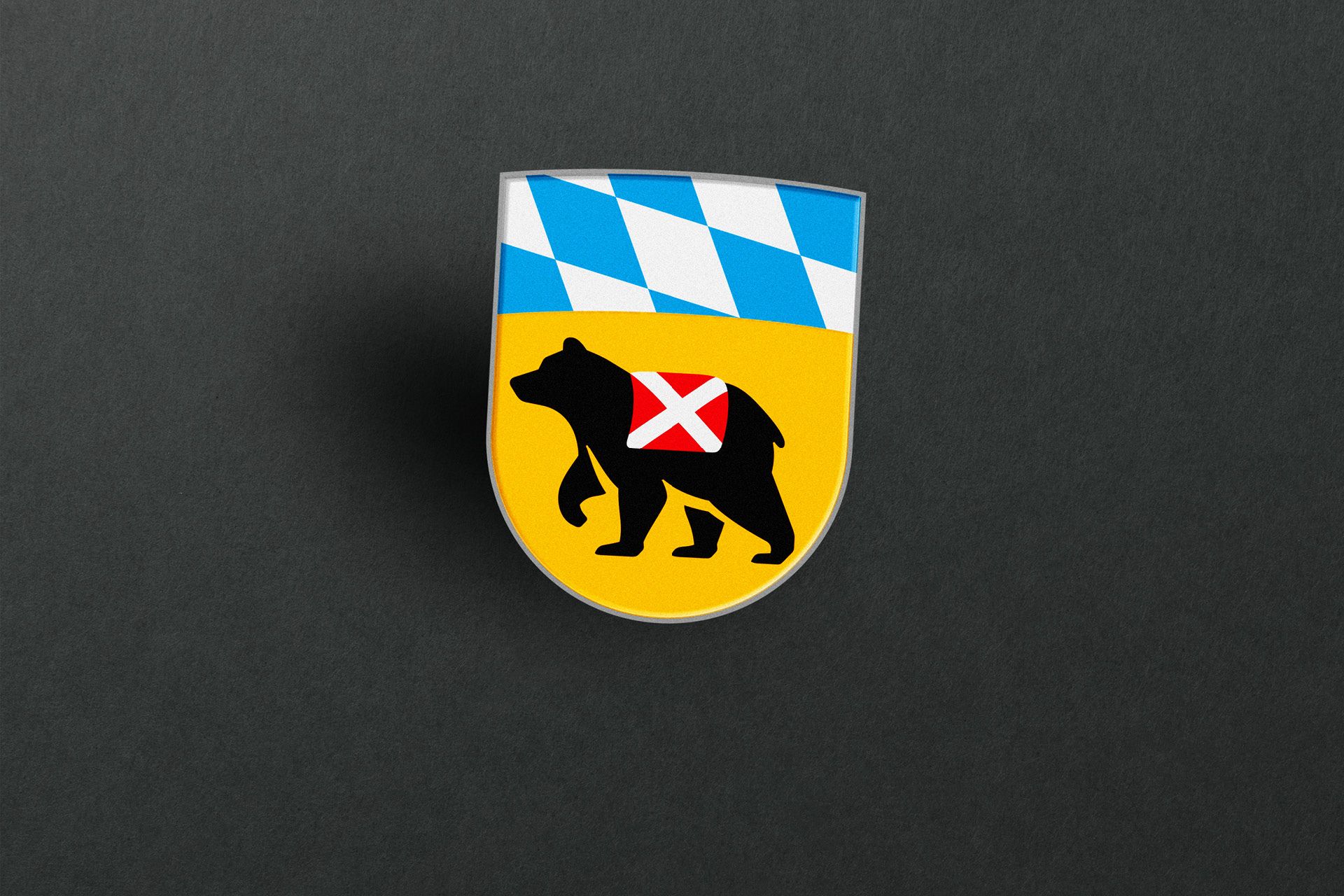
Layout principles
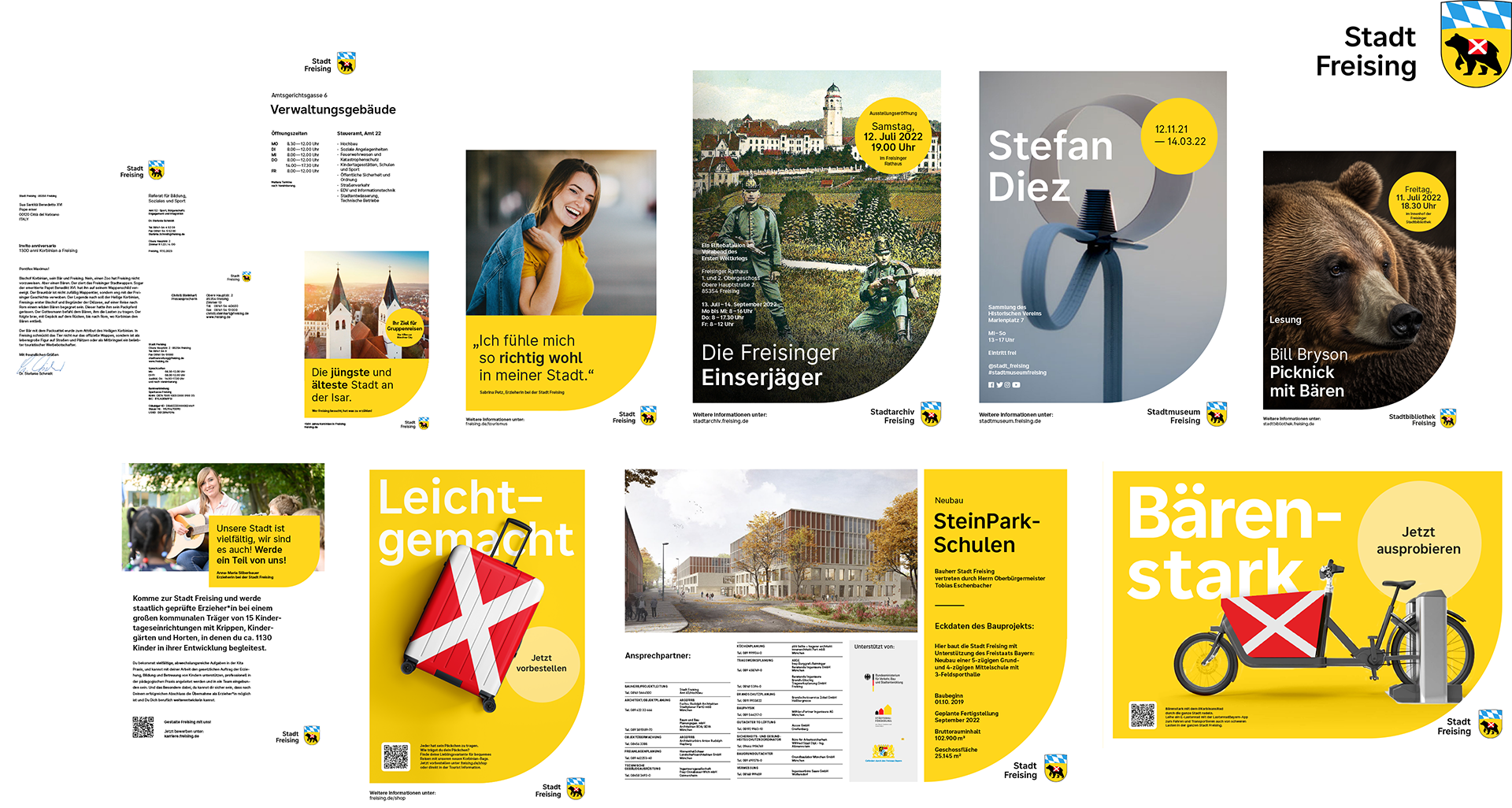
The new corporate design for the city of Freising should bring more consistency. The simple design principle is derived from the shield shape and the colors of the coat of arms. Thus, the yellow, as the carrier of the coat of arms, takes center stage in the visual presentation. It was important that the design framework is easily adaptable to all standard DIN formats and special formats.
In order to enable accessible communication for many people, we have designed an easily implementable and comprehensible corporate design system by defining well-thought-out basic elements with enough contrast and high legibility.
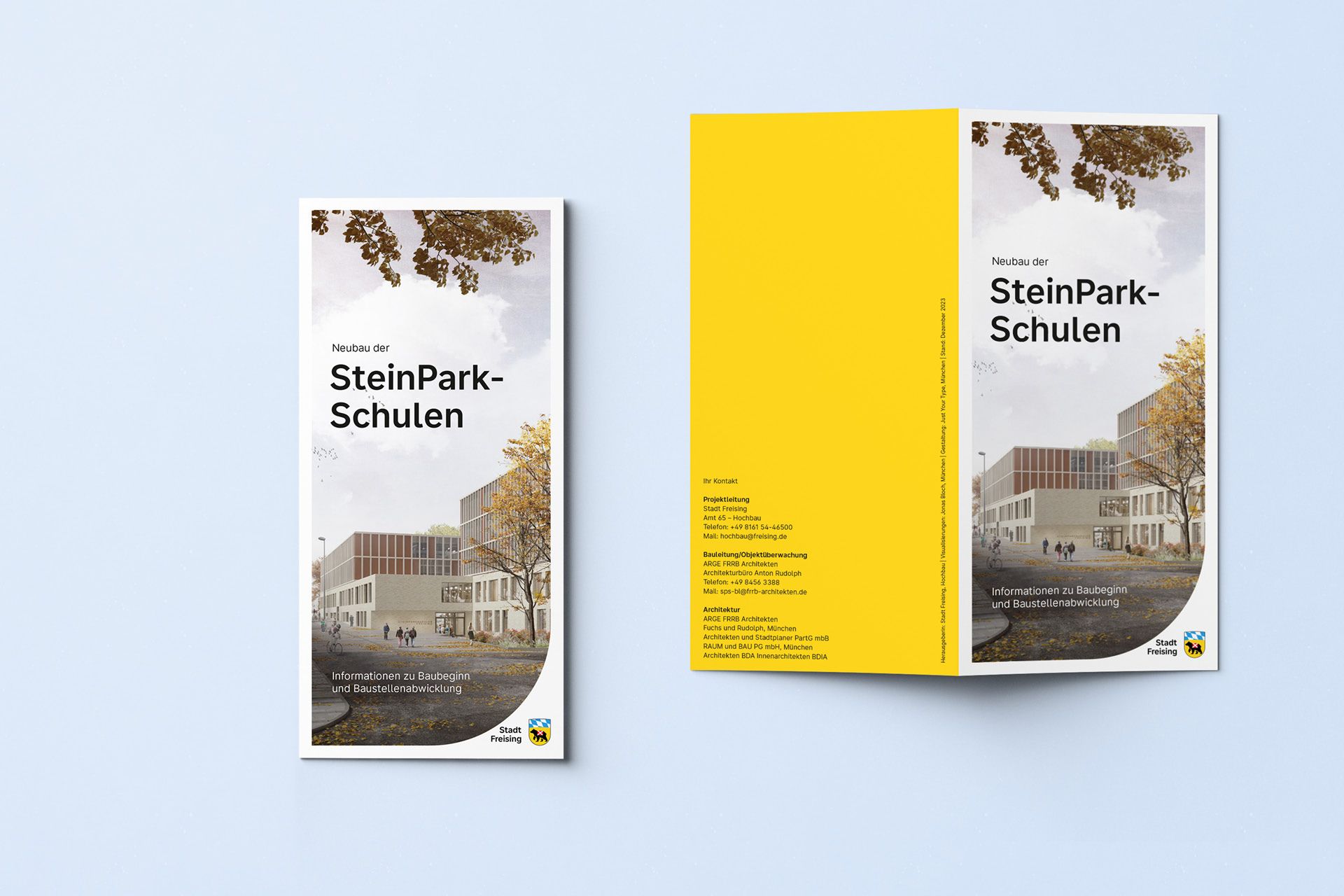
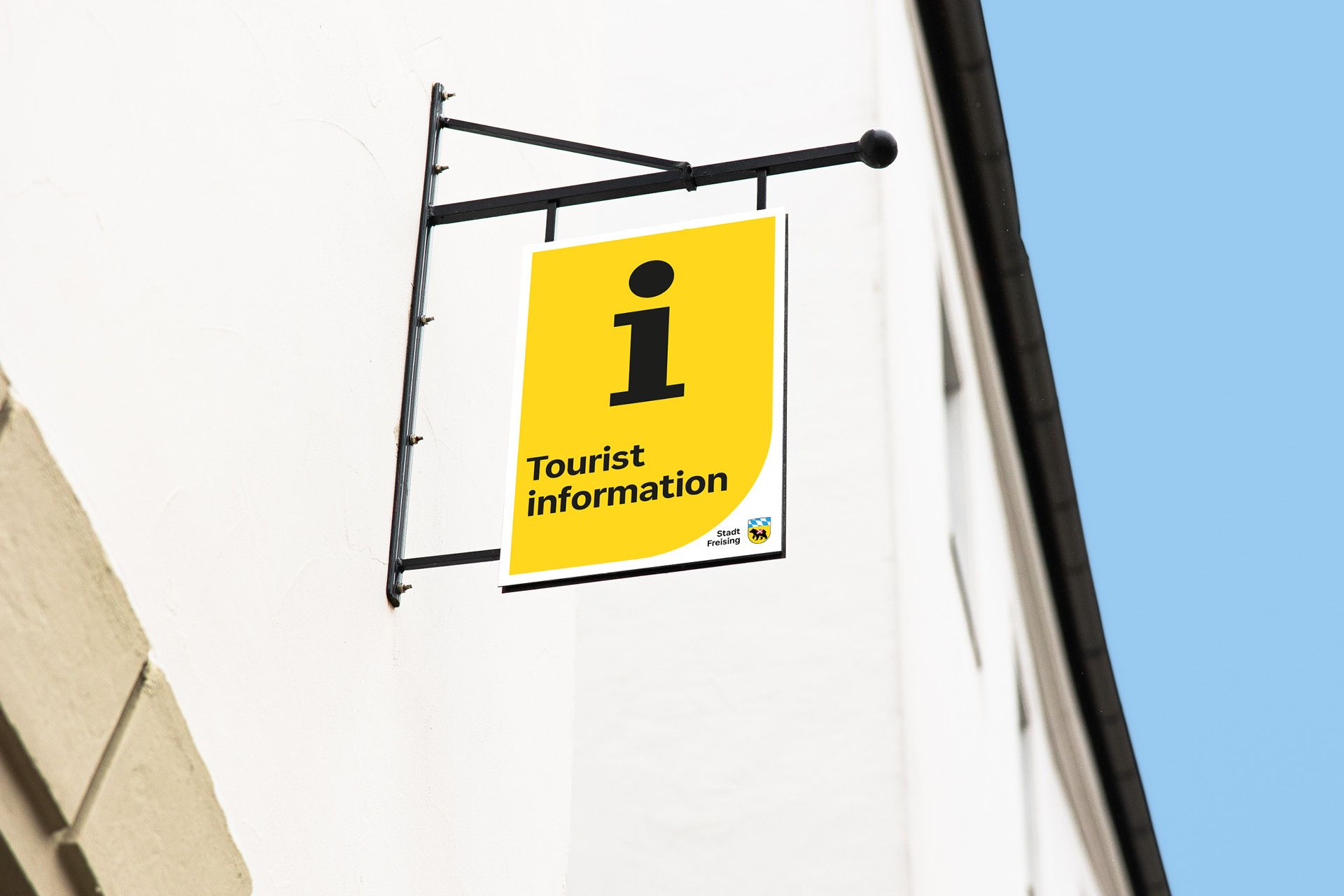
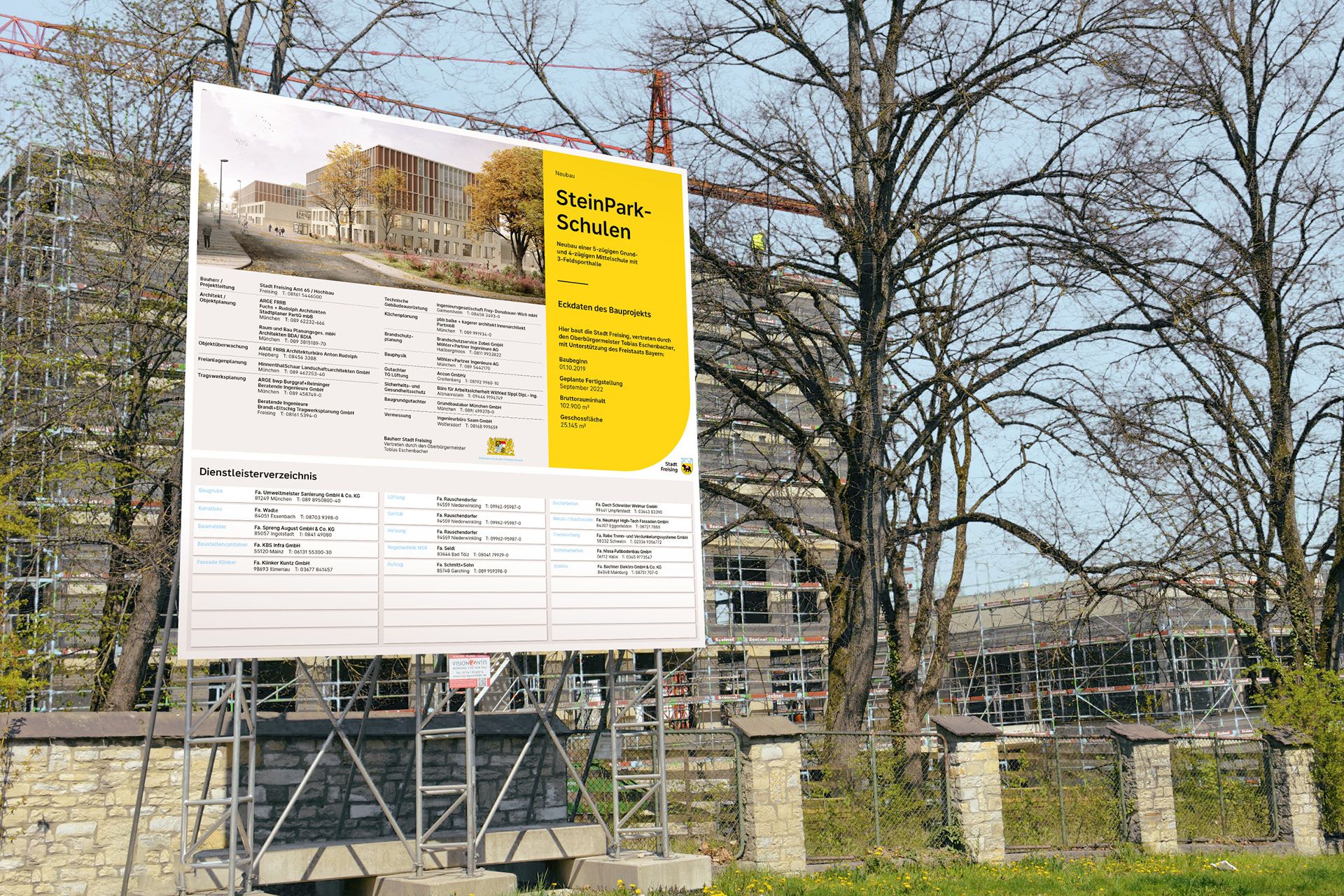
Korbinian’s package
The connection to the city of Freising and its special history could soon be close enough to touch. Since the bear tamed by St. Korbinian carried his luggage all the way to Rome, the people of Freising are now asked to carry on. The translation of the Korbinians bundle can appear today in the striking form of backpacks or bags. But in the future hopefully, even more products like rental bicycles or municipal vehicles will also carry a red bundle tied up with silver ribbons.
Proof of concept
Checking the brand assets – such as shapes and colors, across various media and sizes – is essential for creating a visual system that can be effectively utilized by multiple designers, thus maintaining a high standard in the subsequently defined corporate guide.
Black and white translation
An additional monochrome derivation is obligatory in the urban context for sending out notices, refinements and as a security feature.
Stationary
One of the most significant applications of city branding is still in stationary design, allowing citizens to have a more formal connection to the city. When branding office equipment and stationery, it’s essential to incorporate ample whitespace. The layout system featuring a yellow center stage is reserved for more commercially-oriented event-specific communication.
Online Brand Portal
As a single source of truth, we have created a freely accessible, constantly growing online brand portal. Here you will always find the latest version of all assets and templates.
All design elements are explained and, where appropriate, illustrated with short animations. The design templates are centrally available for all to download; overlapping dimensions help with the reconstruction and comprehensibility of proportions. Additional best-practice examples and mood boards give designers a good feel for the visuality of the brand.